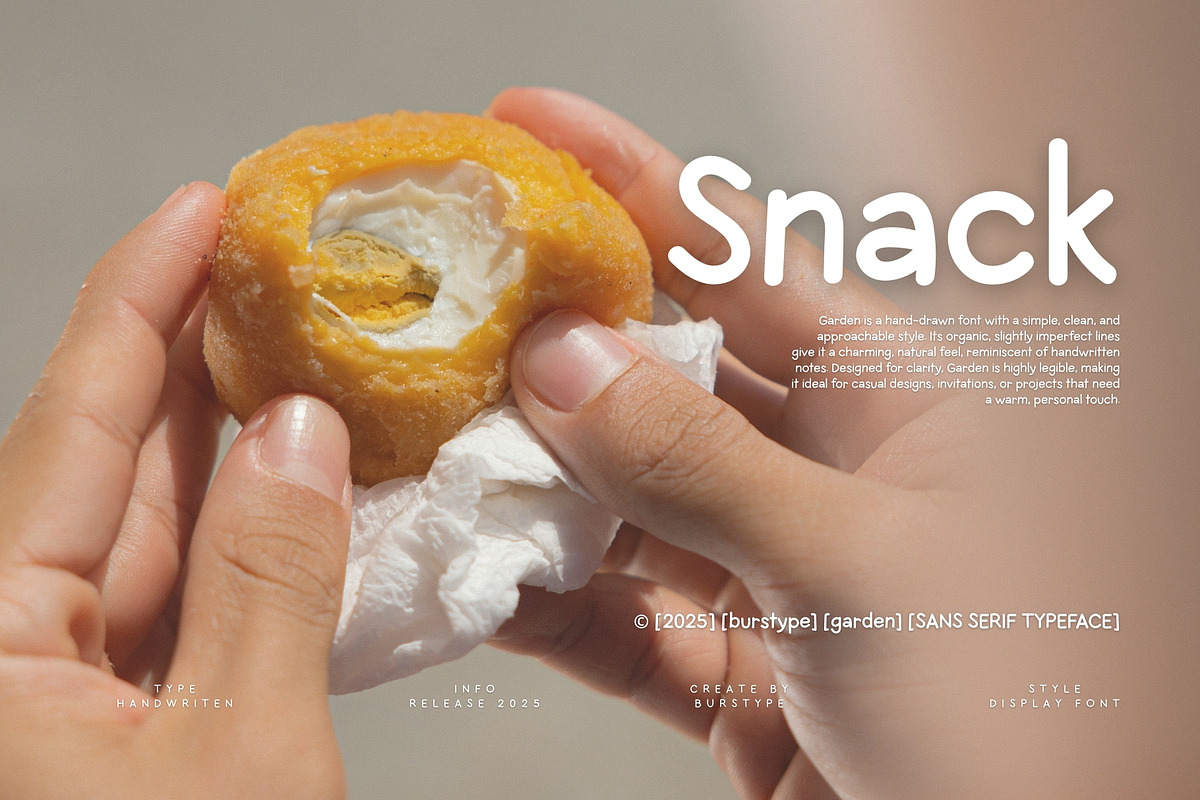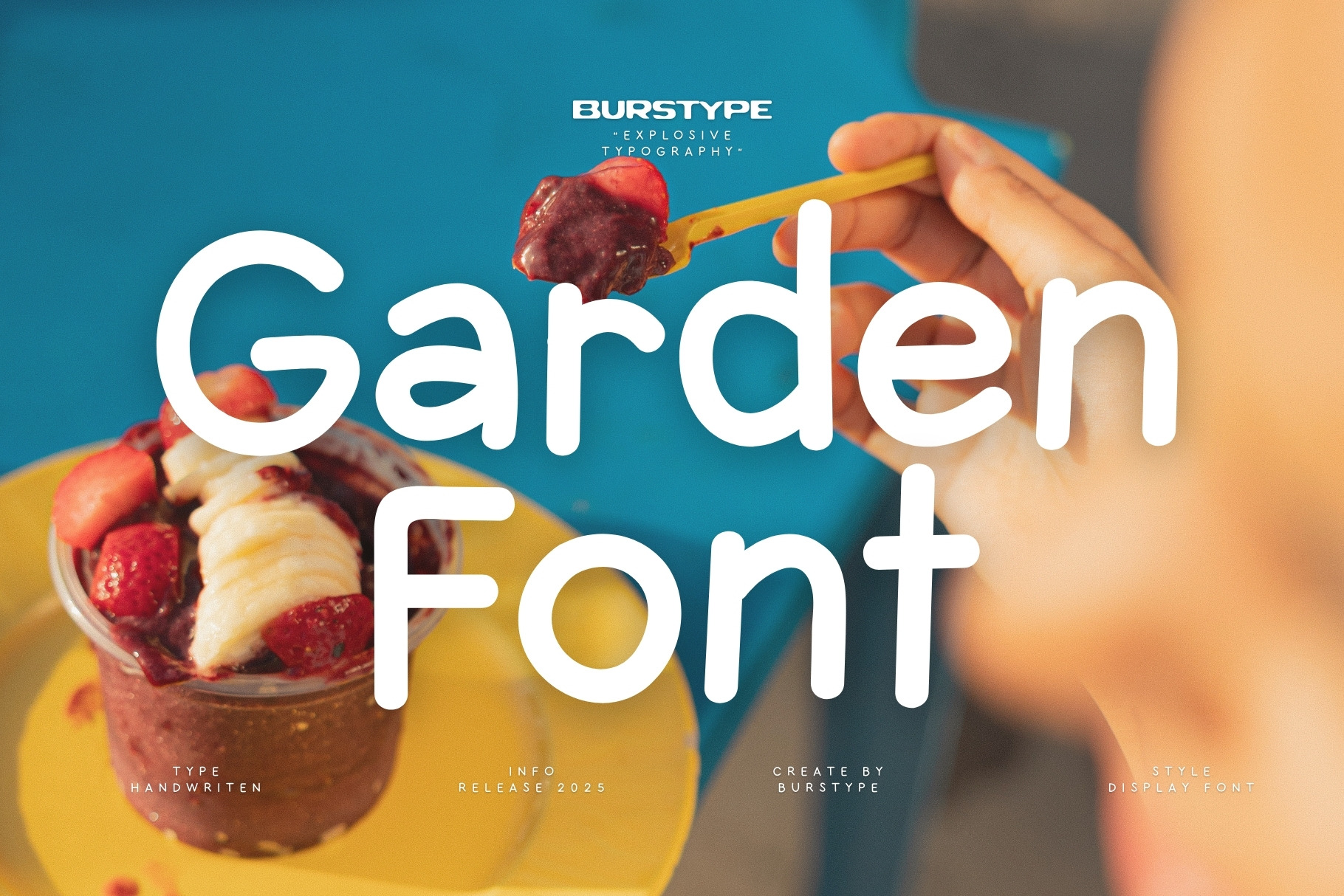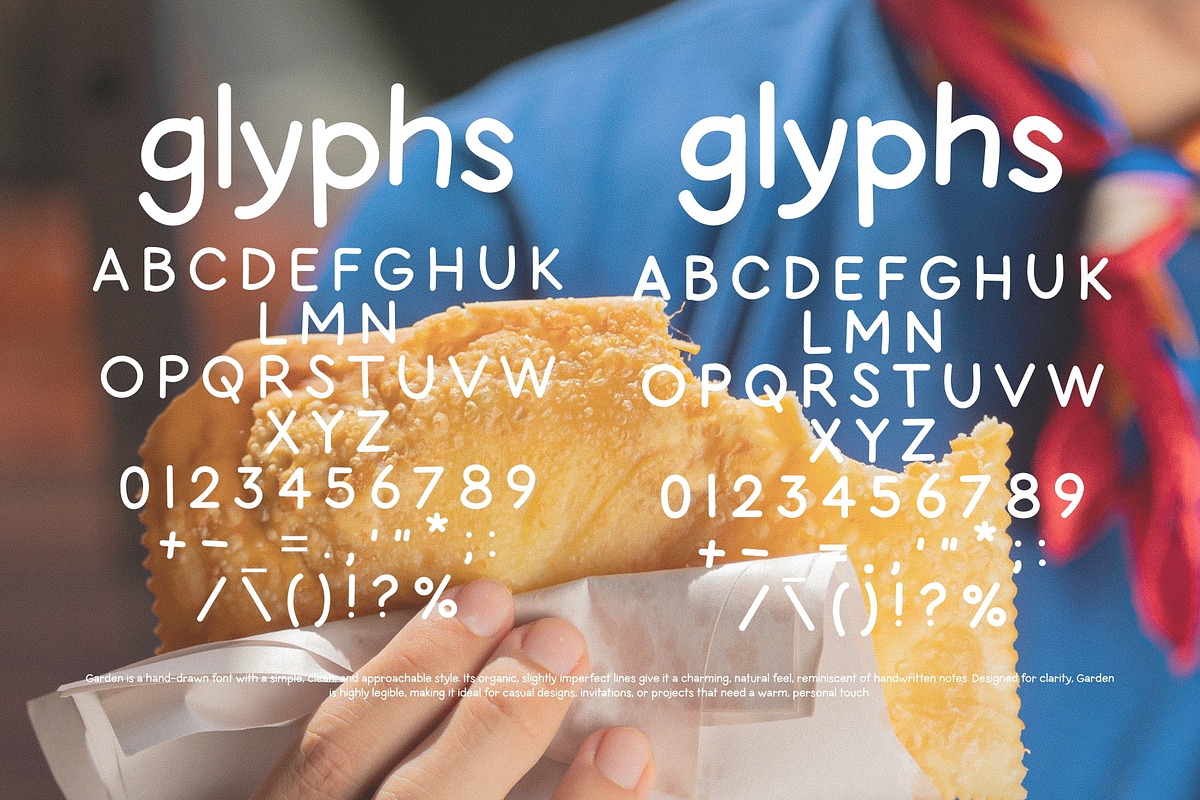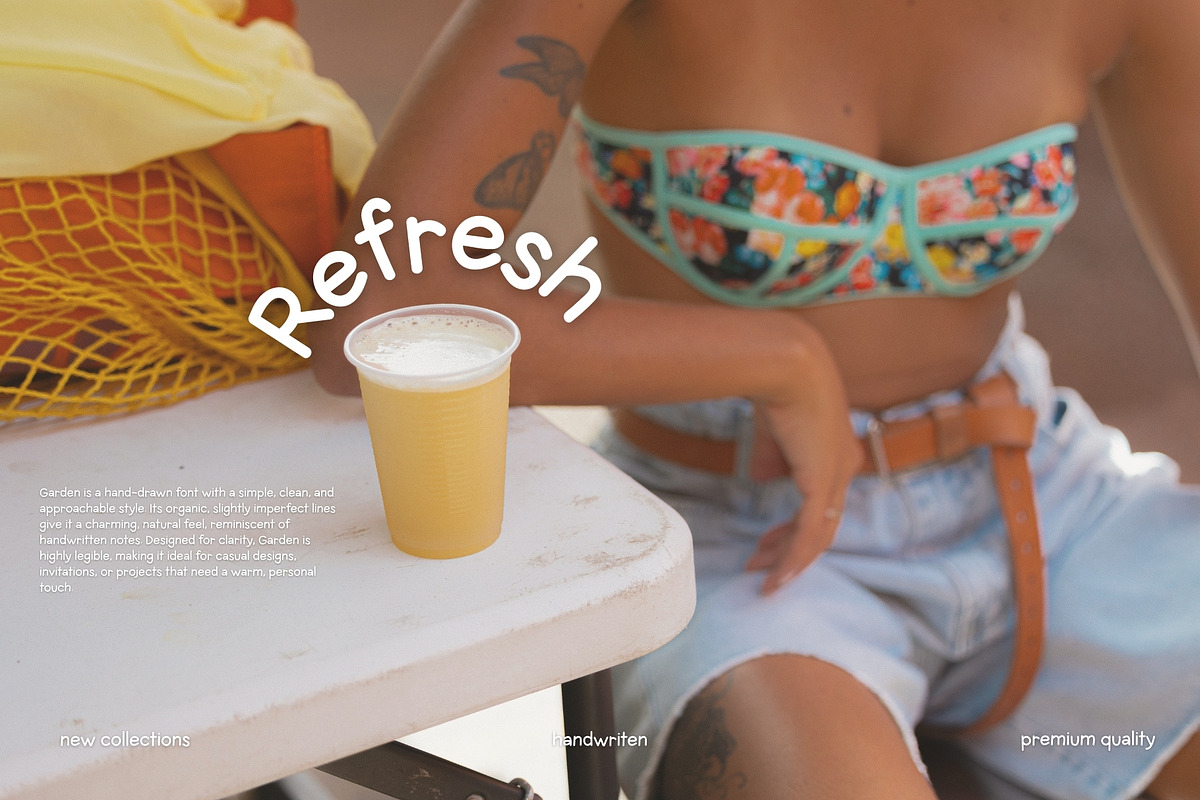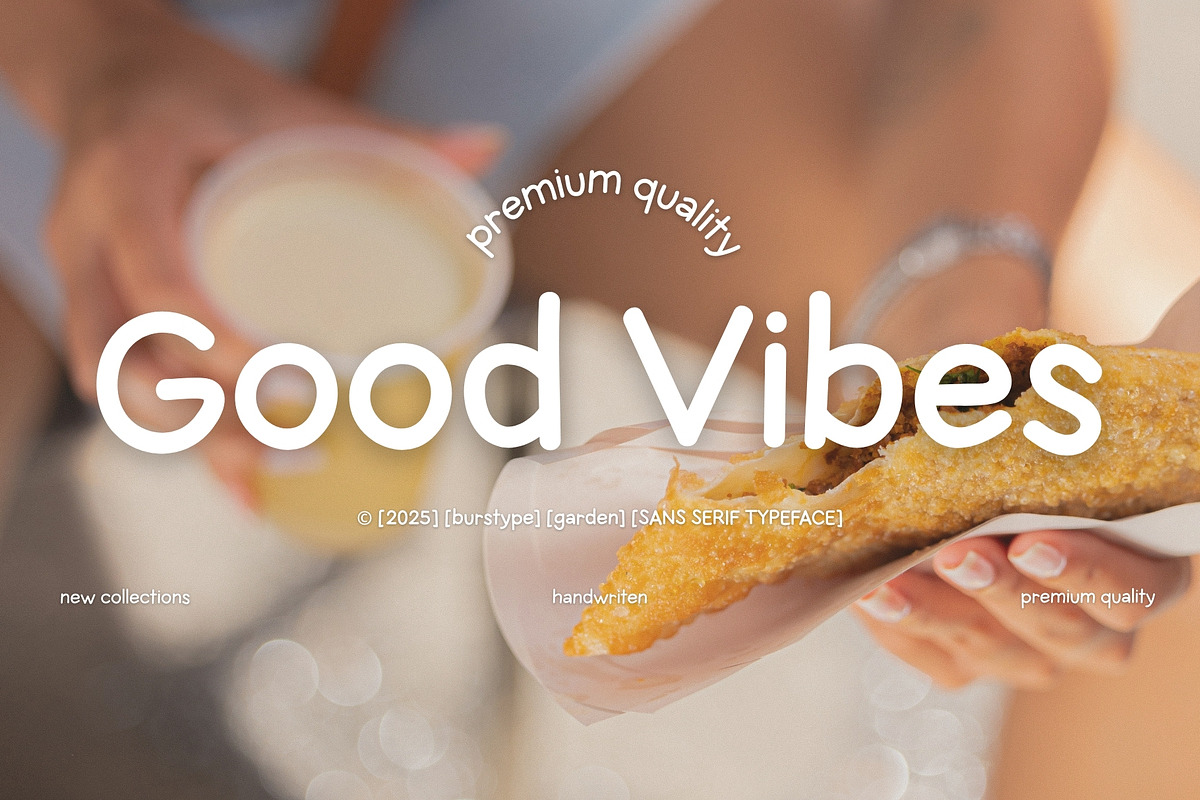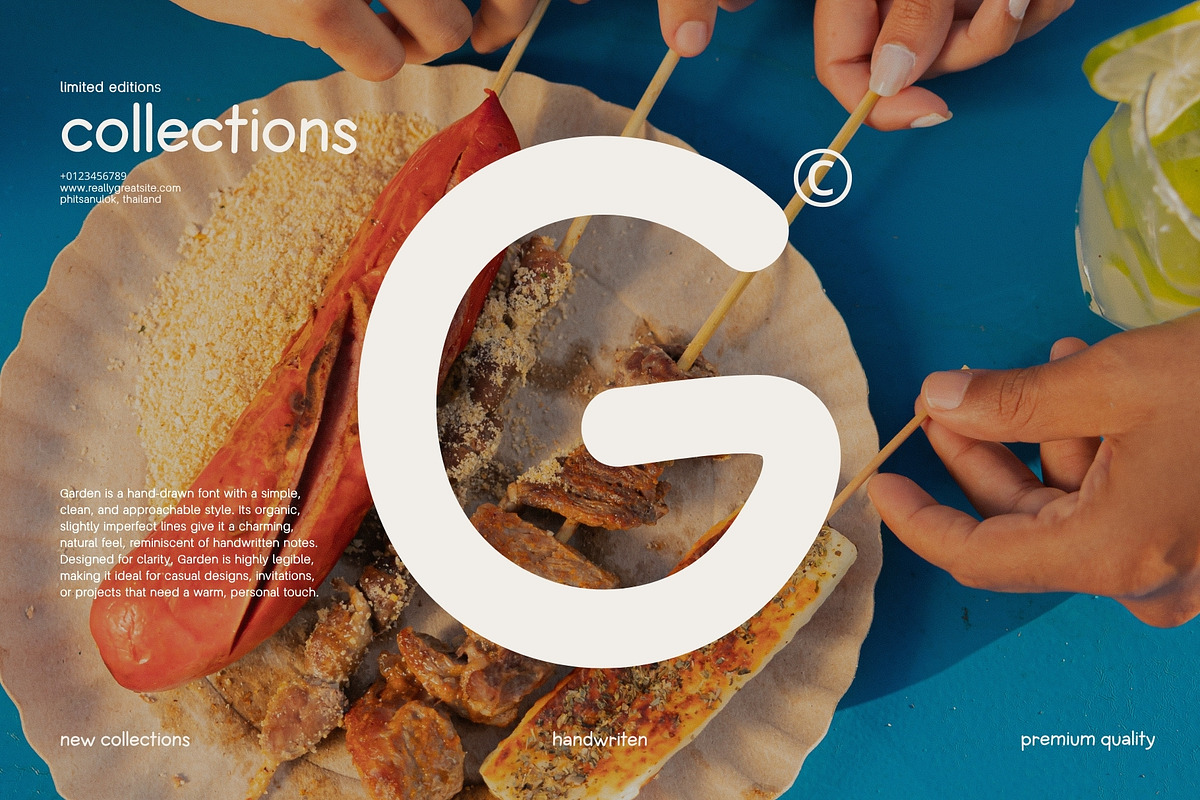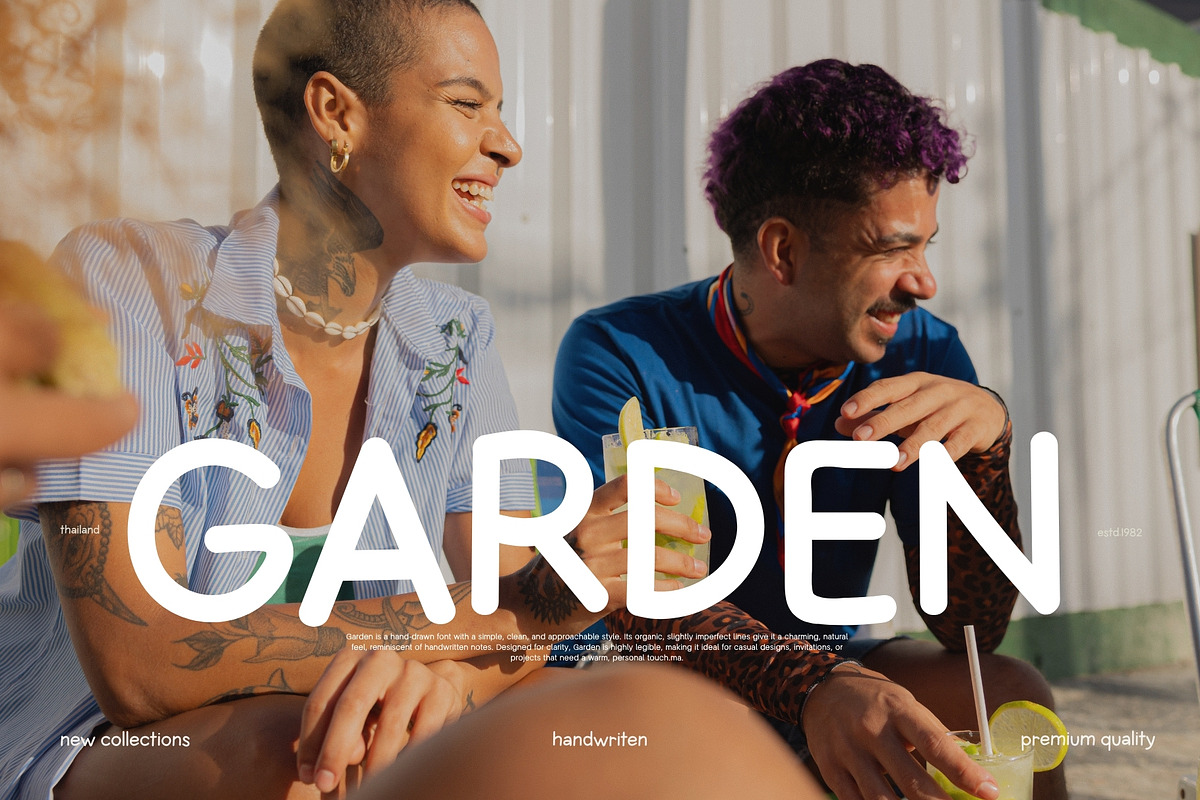
Garden Hand Writen Font
Bring a touch of nature to your designs with the Garden font, a delightful hand-drawn script. Carefully crafted with pen on paper, Garden captures the simplicity and organic charm of casual handwriting. Its slightly imperfect strokes and alternate letter variations, ensure smooth, natural connections between letters, mimicking the flow of a handwritten note.